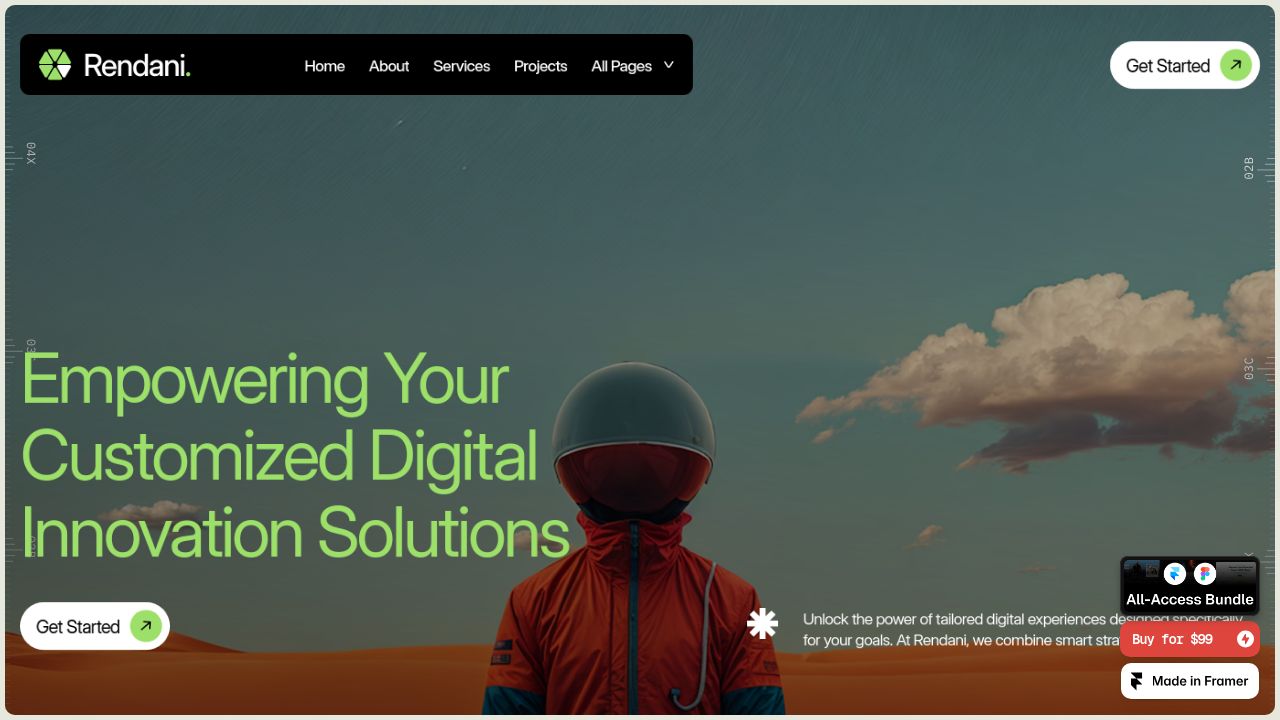
Rendani is a modern Creative Portfolio & Marketing Agency Framer template designed for creative agencies, digital marketing studios, branding agencies, freelancers, and designers. Conversion-focused, high-performance layout to showcase services.
Rendani.framer.website uses Inter Display, IBM Plex Mono, Geist Mono and Inter as its main typefaces. 6 fonts detected, last checked Apr 14, 2026.
Rendani is a creative portfolio and marketing agency that showcases its identity through a thoughtful selection of typography. The use of Inter for body text provides clarity and legibility, making it an ideal choice for creative agencies and freelancers. Geist Mono adds a distinctive touch with its modern monospaced style, enhancing the design's uniqueness. IBM Plex Mono complements the overall aesthetic, lending a contemporary yet approachable feel to the content. This combination creates a visually engaging experience for users.
The primary fonts used on rendani.framer.website include Inter, Geist Mono, and IBM Plex Mono, each chosen for its unique characteristics.
Inter is designed for high legibility on screens, making it more suitable for digital environments compared to other sans-serif fonts like Arial or Helvetica.
Rendani uses various weights: Inter is used in 400, Geist Mono is available in 600, while IBM Plex Mono is in 400, providing versatility in design.